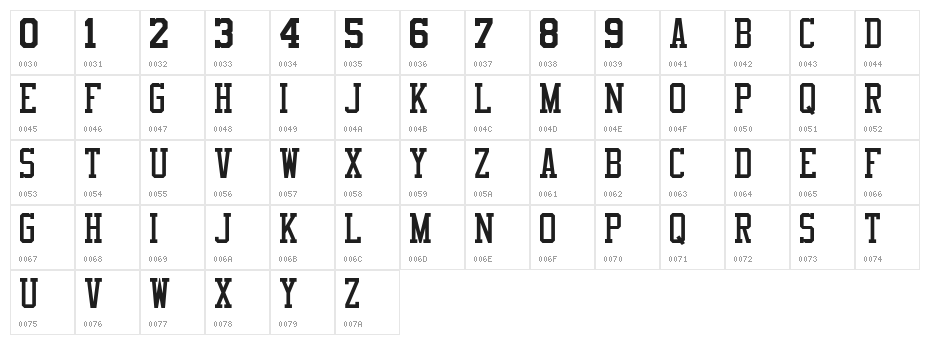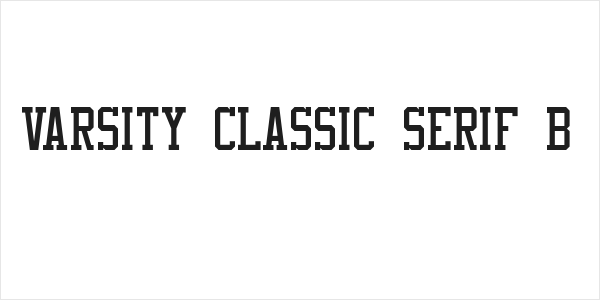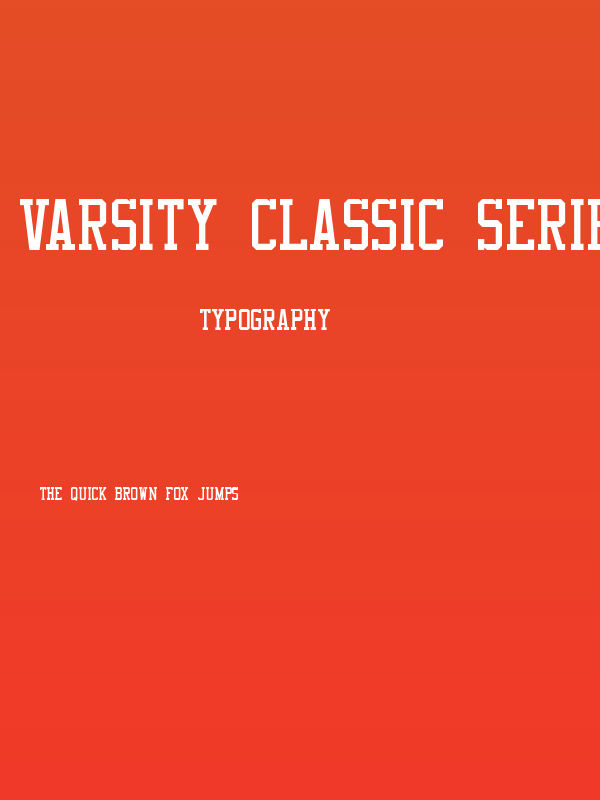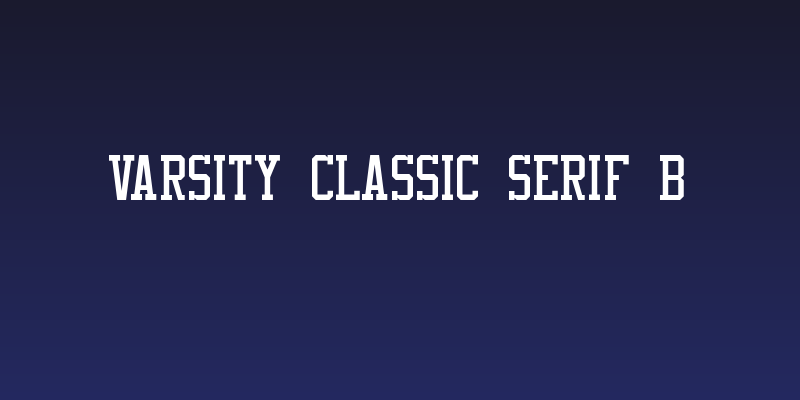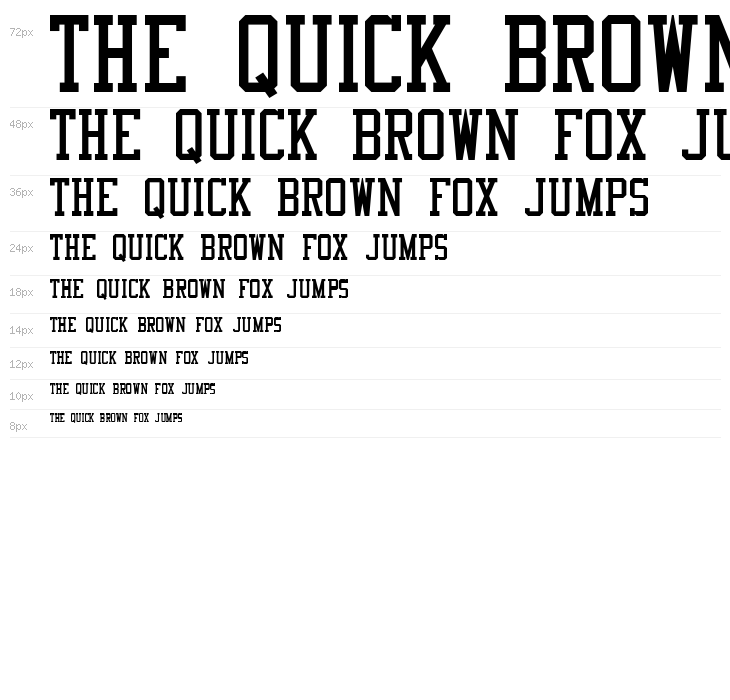
Varsity Classic Serif B Font
Varsity Classic Serif B Description
This font features a bold and robust design with a classic serif style, reminiscent of traditional varsity or collegiate lettering. The characters are blocky and strong, with pronounced serifs that add a touch of elegance and formality. The uppercase letters are particularly striking, with a uniform height and width that convey a sense of stability and authority. The numbers are equally bold, maintaining the same weight and presence as the letters. This font is ideal for projects that require a strong, impactful typeface that commands attention while still retaining a classic and timeless appeal.
| Proposed Projects | Ideal for sports team branding, school logos, event posters, and merchandise designs. |